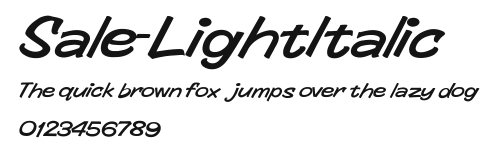
• Font Name: Sale-LightItalic
• Full Font Name: Sale-LightItalic
• PostScript Name: Sale-LightItalic
• Character Count: 245
• Copyright: Copyright Tony Booth, 1996. Published by FontShop International FontFont release 18
About Sale-LightItalic.ttf
Sale-LightItalic.ttf is a modern, elegant sans-serif font designed for ultimate readability and visual harmony. Perfect for branding, headlines, web design, and print materials.